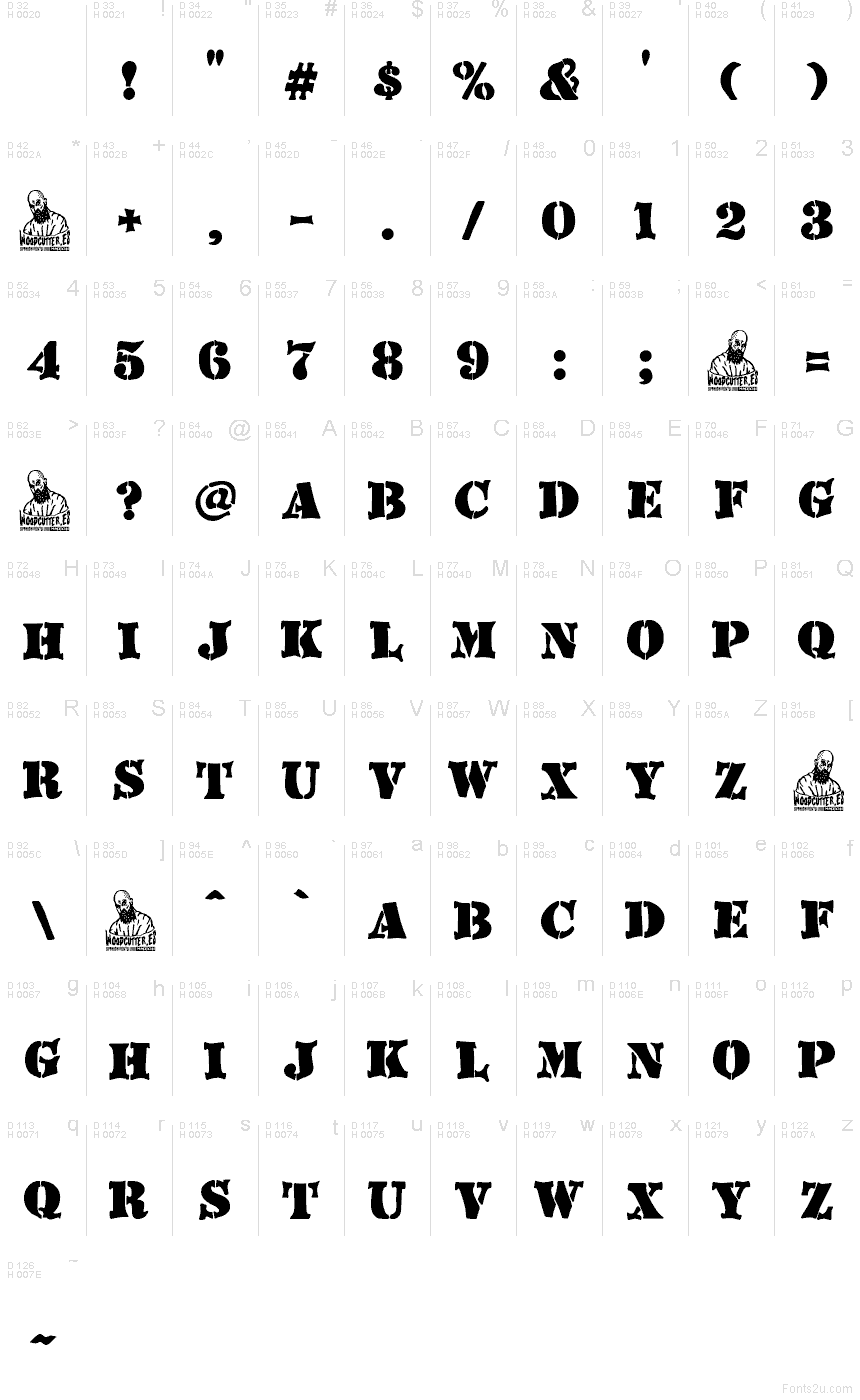
Vintage Stencil
Vintage Stencil font by Woodcutter is a free vintage stencil display typeface with a gritty, hand-cut edge. Thick, blocky letters are broken by bold stencil gaps and rough, ink-splattered contours, giving every word the feel of an old shipping crate or weathered factory sign. The texture looks almost spray-painted, so your titles carry a raw, industrial punch without needing extra graphic effects.
Using Vintage Stencil font by Woodcutter, you can push attitude into gig posters, beer and spirits labels, vintage packaging, escape-room branding, military-inspired graphics, and bold event titles. The tight spacing and dense forms thrive at large sizes, where the distressed details really show. This free font pairs well with a clean, neutral sans serif for body copy-let Vintage Stencil shout the headline while the sans serif keeps everything readable beneath it.